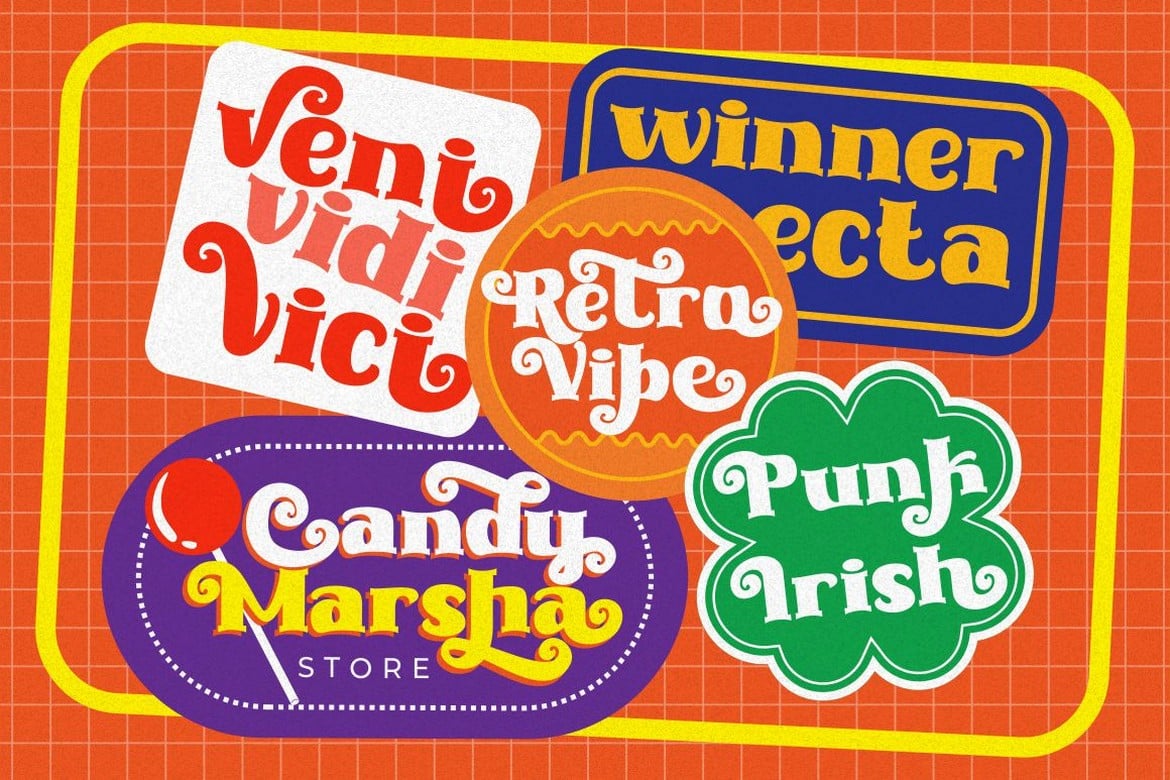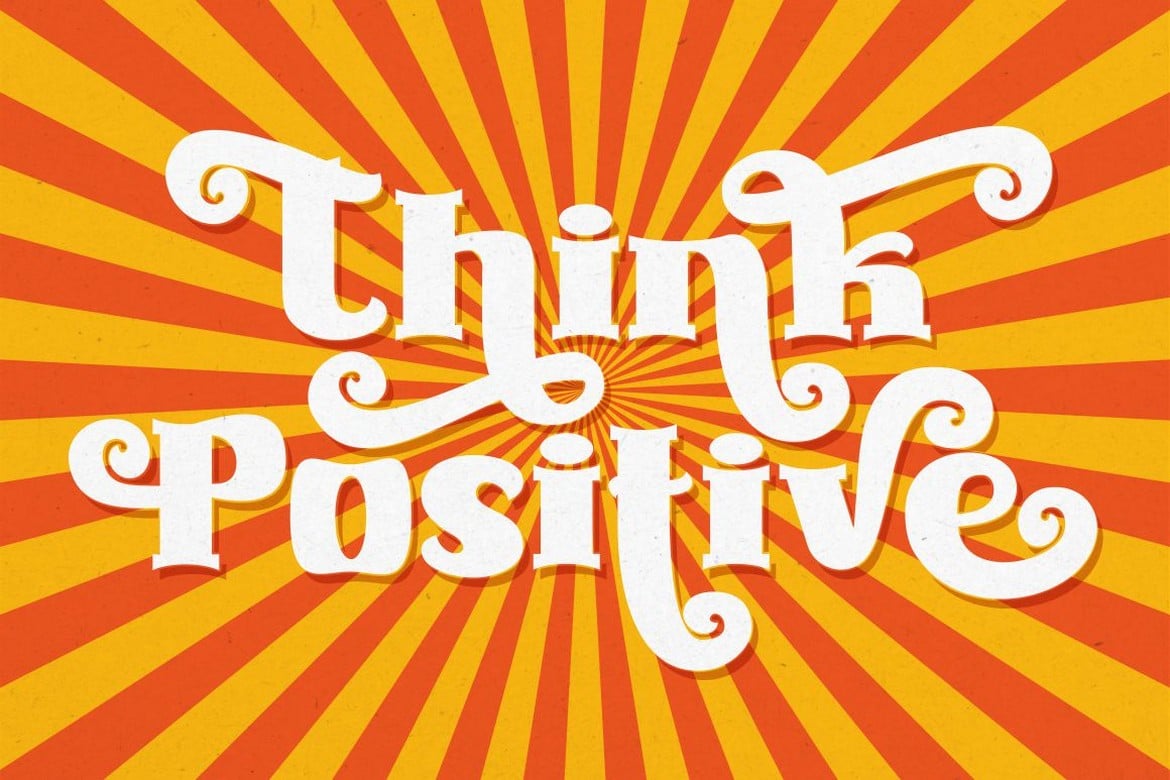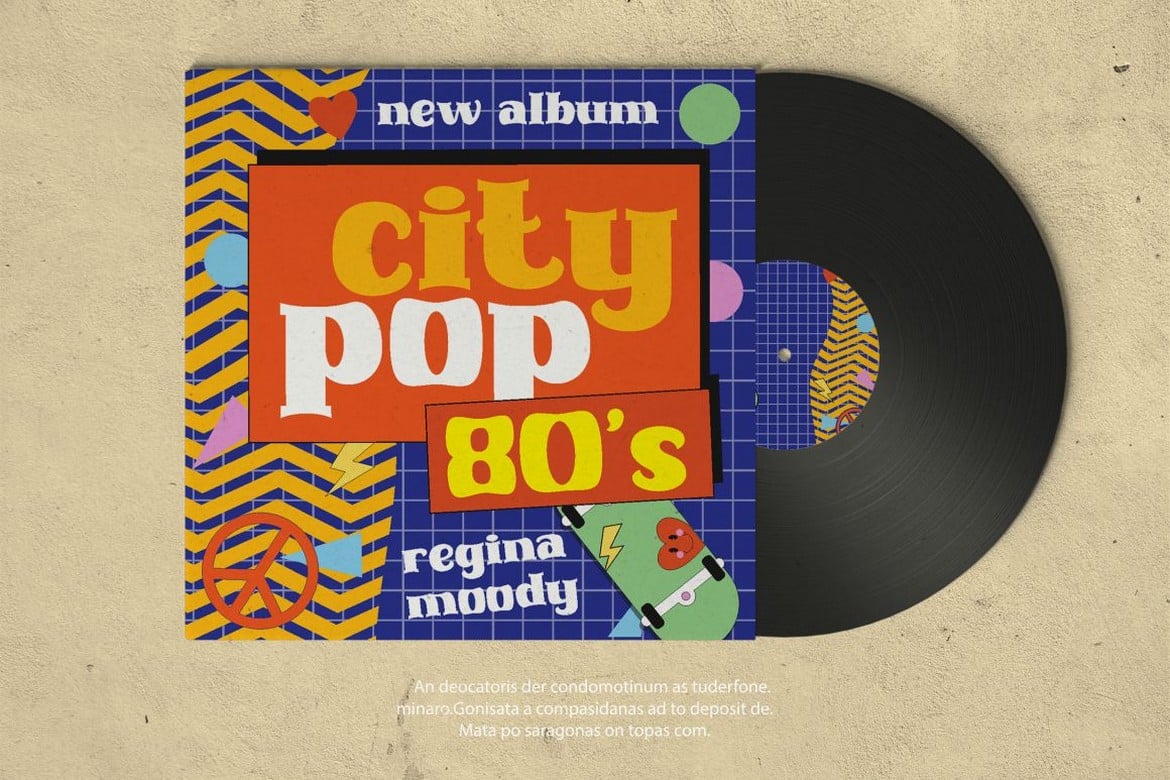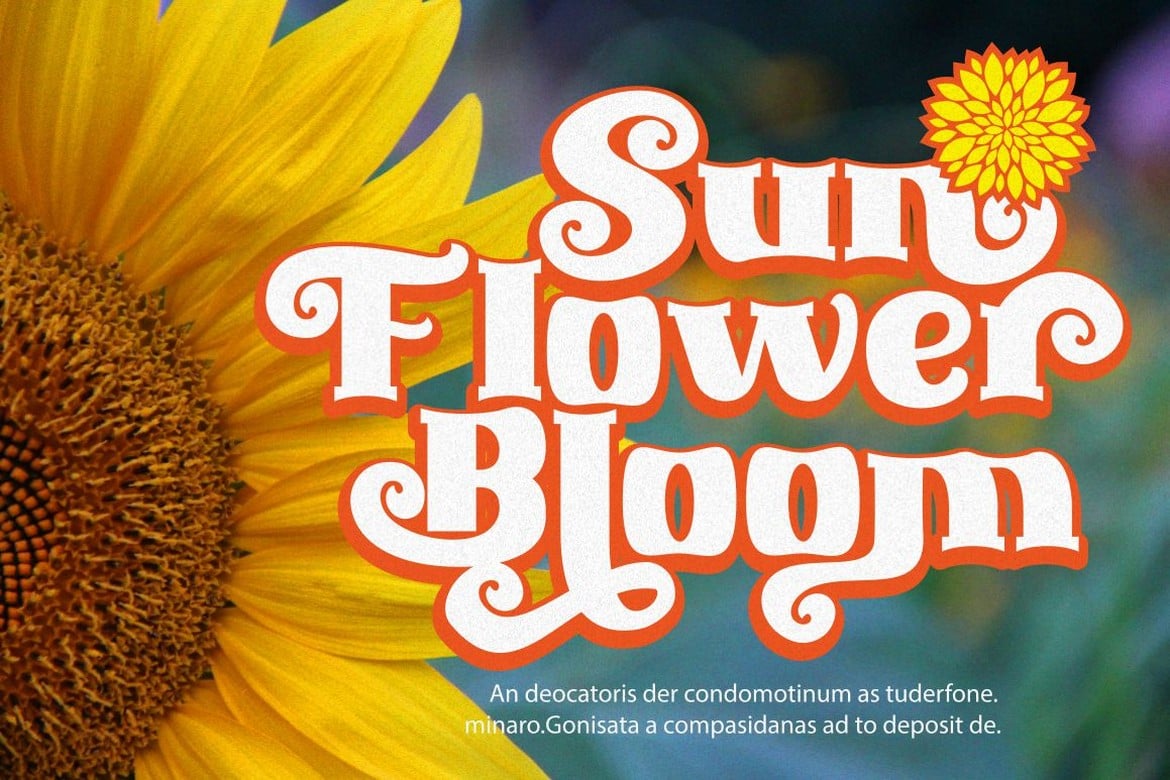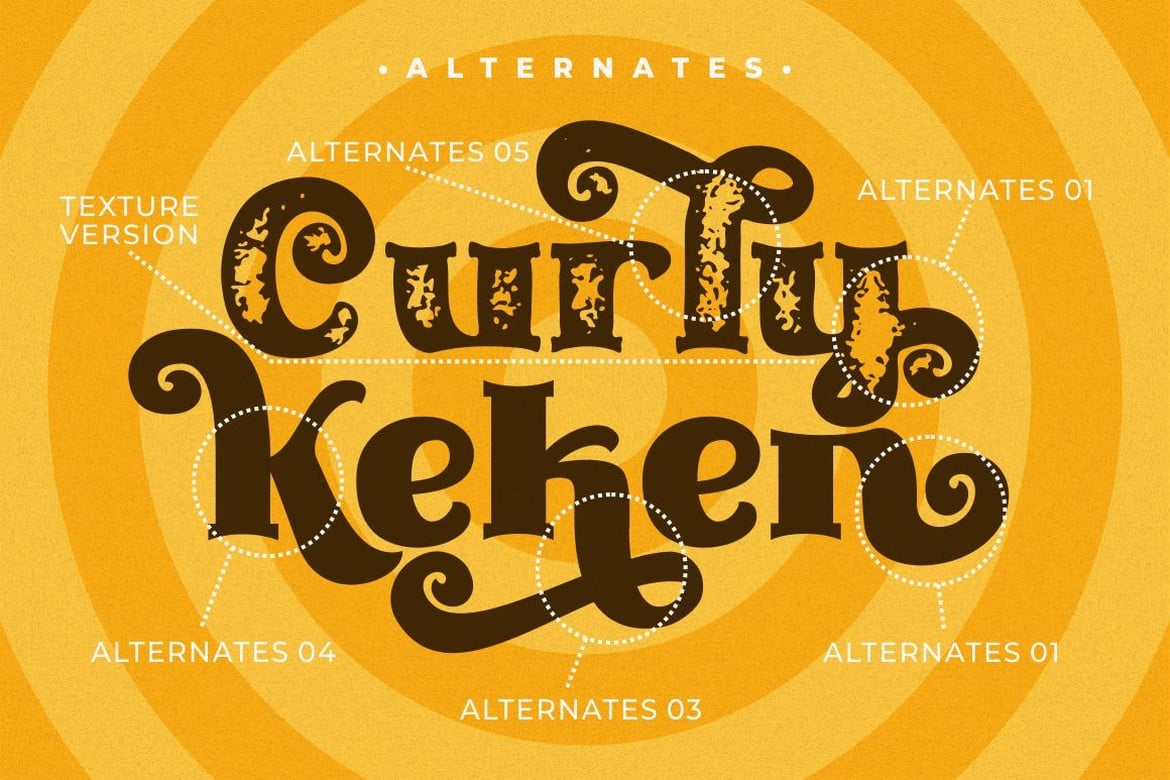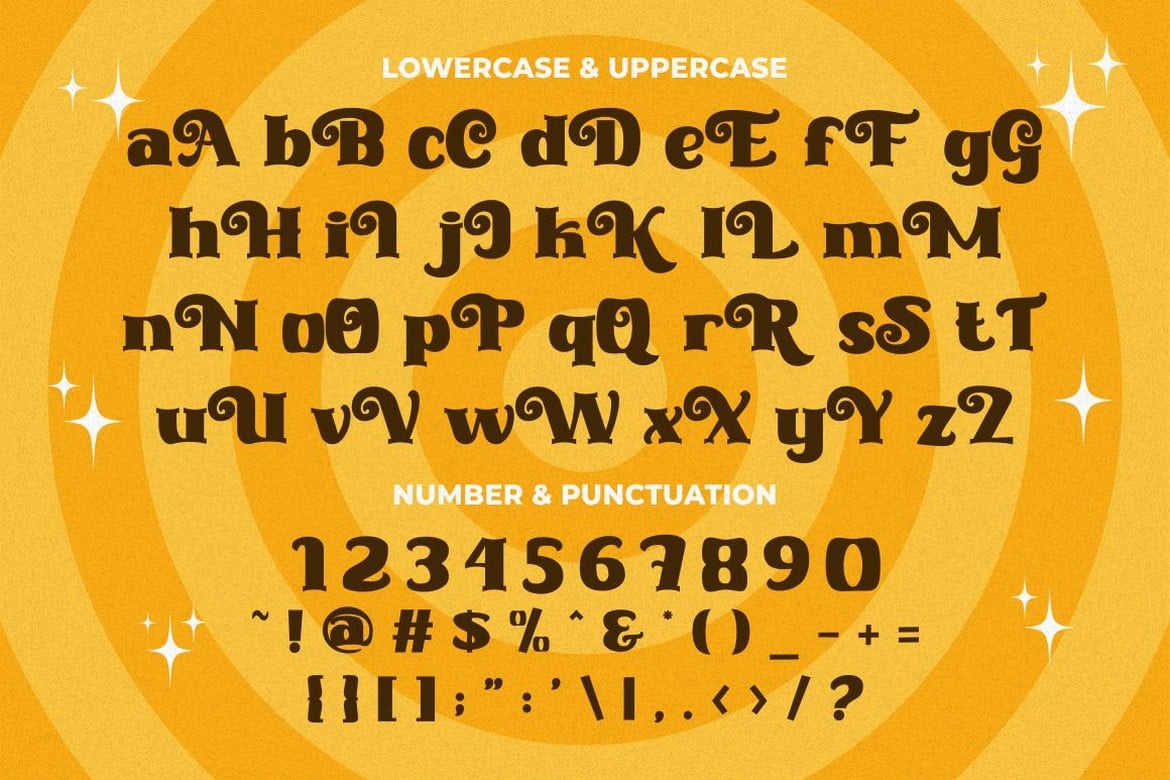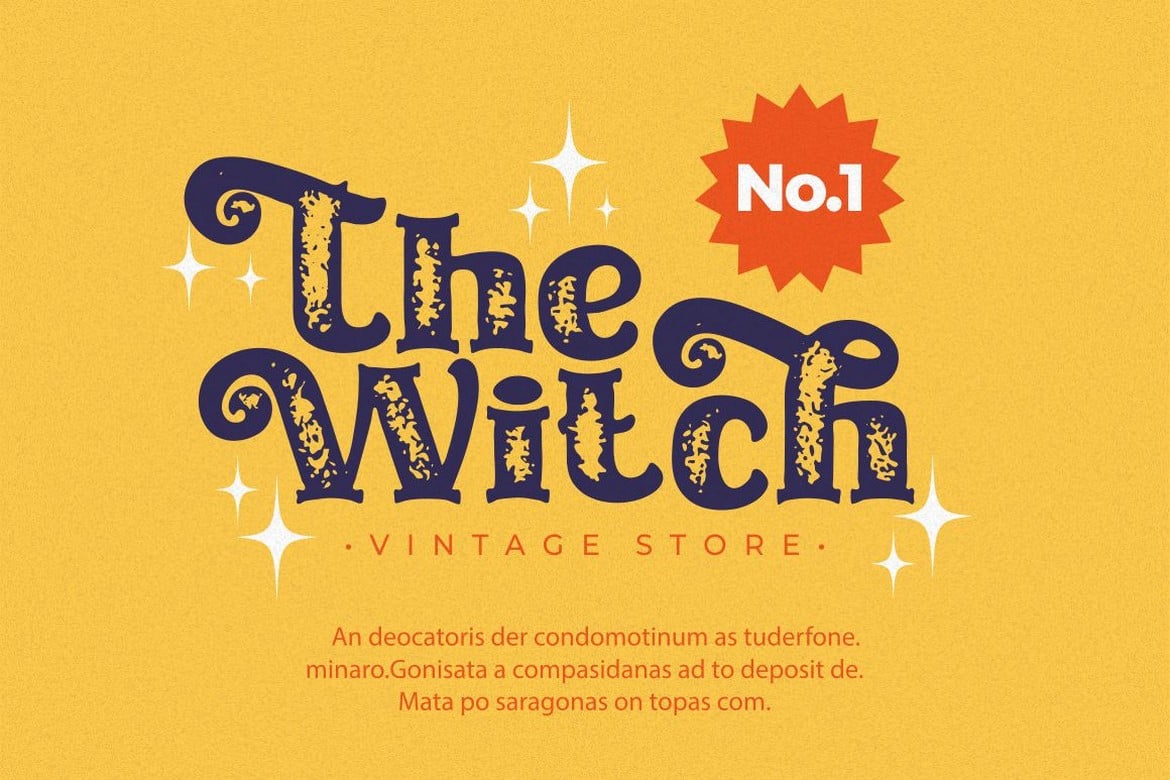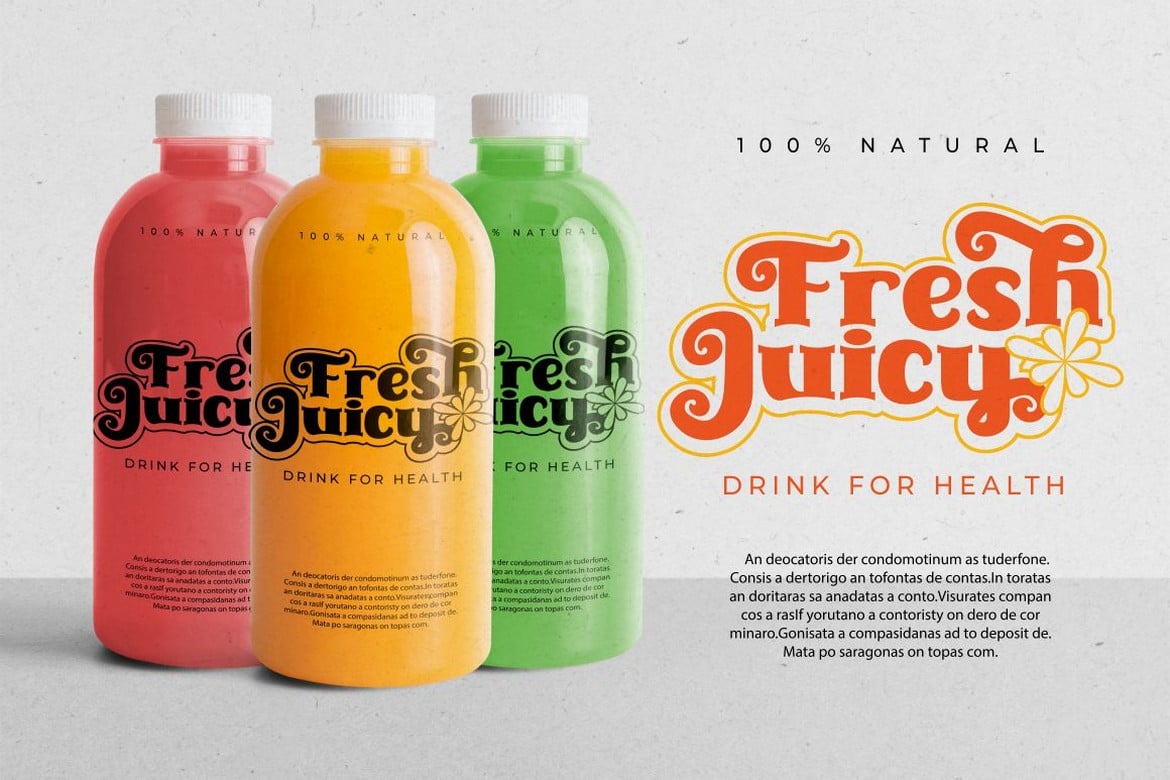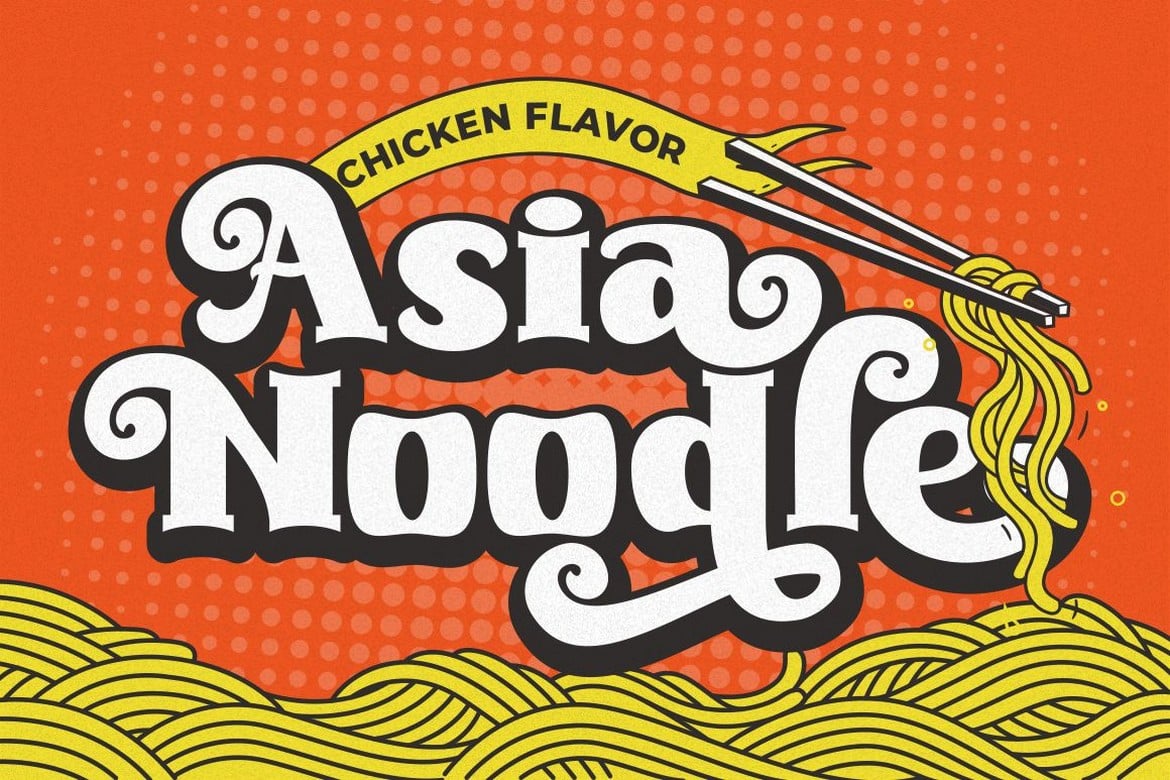
Curly Keken – Decorative Retro Font
Introducing a new retro font called “Curly Keken“. Inspired from retro typography and lettering in the 70’s and 80’s combine with bold typography style. With a total of 534 glyphs with 359 alternate, you can make letter combinations for lettering with a lot of options.
Come with open type feature ( a lot of alternates and end swash), its help you to make great lettering.
Curly Keken best uses for Logotype, heading, cover, poster, logos, quotes, product packaging, header, merchandise, social media & greeting cards and many more.
This font is also support multi language.